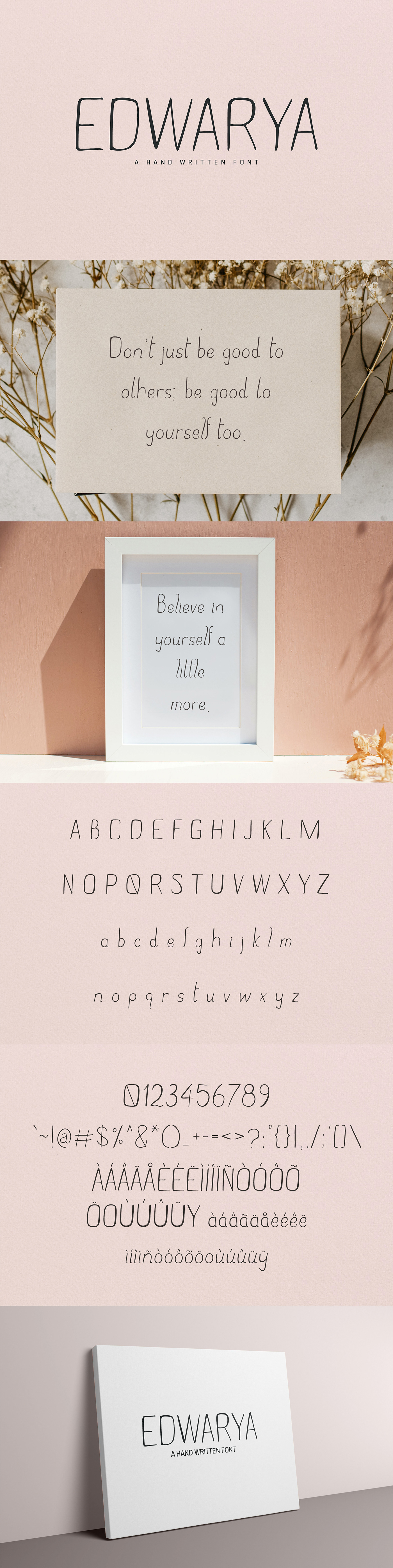
Introducing Edwarya Sans Serif Font is a cute, lovely and versatile handmade font that will provide a perfect handmade touch to your upcoming projects. Edwarya font will look perfect for headlines, logotypes, signage, advertising, magazine, logos, invitations, texts, posters, notices, titles, name cards, web layouts, headers, branding, weddings, social media, product design, stationery, and other any business related.